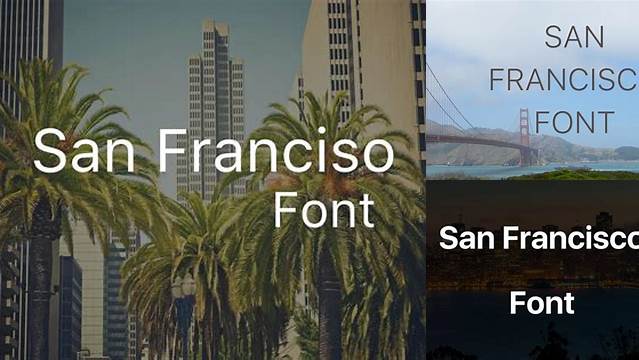
Unveiling the San Francisco Font: A Typographic Gem
Hey guys, ever found yourself admiring the crisp, clean aesthetic of Apple devices and wondering what makes their text look so darn good? Chances are, you've been charmed by the San Francisco font, often abbreviated as SF Pro or SF Compact. This typeface is a masterclass in modern, legible design, and it's no wonder so many of us want to bring that sleek vibe to our own Android devices. But here's the catch: Apple doesn't officially offer the San Francisco font for direct download and installation on Android. That’s right, it's proprietary. However, as with many things in the tech world, where there's a will, there's a way! This article is your ultimate guide to understanding the San Francisco font and exploring the possible avenues for incorporating its stylish charm onto your Android phone or tablet. We'll dive deep into what makes this font so special, why you'd want it, and how you might be able to achieve that Apple-esque look, all while keeping things as straightforward and helpful as possible. So, buckle up, fellow font enthusiasts, because we're about to embark on a typographic adventure!
Why the Fascination with San Francisco Font?
So, what’s the big deal about the San Francisco font, you ask? Why are so many people, myself included, so keen to get their hands on it for their Android devices? Well, it boils down to a few key factors that make this typeface a real standout. First and foremost, readability. Apple designed the San Francisco font with legibility as its absolute top priority, especially across a range of sizes and devices. Whether you're looking at it on a tiny smartwatch screen or a larger iPad, the characters remain clear, distinct, and easy to decipher. This isn't an accident; it's the result of meticulous design work, paying attention to details like the apertures (the openings in letters like 'o' or 'c') and the spacing between characters. Secondly, there’s the modern, clean aesthetic. The San Francisco font embodies a contemporary, minimalist design language. It feels sophisticated without being stuffy, clean without being sterile. This visual appeal is a huge draw, as it instantly elevates the look and feel of any interface or document it's applied to. On Android, where customization is king, adding a font like San Francisco can give your device a unique, premium feel that’s often associated with high-end tech. Plus, let's be honest, seeing your favorite apps and system text rendered in this sleek font just feels right. It offers a cohesive and polished user experience, bridging the gap between the distinct visual identities of iOS and Android. The versatility of the SF Pro and SF Compact variants also plays a huge role. These aren't just one-trick ponies; they come in different weights and optical sizes, ensuring optimal performance and aesthetics in diverse contexts. This thoughtful design ensures that text doesn't just look good; it functions brilliantly too, which is a big win for anyone who spends a lot of time interacting with their screen. The combination of superior legibility and a modern, attractive appearance makes the San Francisco font a highly desirable addition to any Android user's toolkit.
Understanding SF Pro vs. SF Compact: The Apple Duo
Before we even think about downloading anything, it’s crucial to understand the two main flavors of the San Francisco font that Apple champions: SF Pro and SF Compact. These aren't just random names; they represent distinct design choices catering to different screen sizes and use cases. Think of them as two siblings, both part of the same stylish family, but with slightly different personalities and jobs. SF Pro is the more versatile and widely used variant. It's designed to work beautifully across a broad spectrum of sizes, from the smallest text on an Apple Watch to larger headlines on a Mac. It has a slightly more open feel, ensuring excellent readability even at smaller point sizes. You'll see SF Pro powering the bulk of the text on iPhones, iPads, and Macs. On the other hand, we have SF Compact. As the name suggests, this variant is optimized for compact spaces. It's narrower and has tighter spacing, making it ideal for environments where screen real estate is at a premium, like the Apple Watch interface or certain app elements. SF Compact Text is specifically engineered for small text sizes, while SF Compact Display is tailored for larger, more prominent text. Understanding these nuances is important because if you do manage to find and download San Francisco fonts for your Android, you might encounter variations labeled as SF Pro or SF Compact. Knowing which one is designed for which purpose can help you choose the best fit for your needs. For general use on an Android phone, SF Pro is often the preferred choice due to its balanced design and excellent legibility across various sizes. However, if you're aiming for a look that mimics the ultra-minimalist UI of an Apple Watch, SF Compact might be what you're after. It's all about understanding the intended application of each variant to achieve the desired aesthetic on your Android device. These two fonts represent Apple's commitment to typographic excellence and user experience across their entire ecosystem.